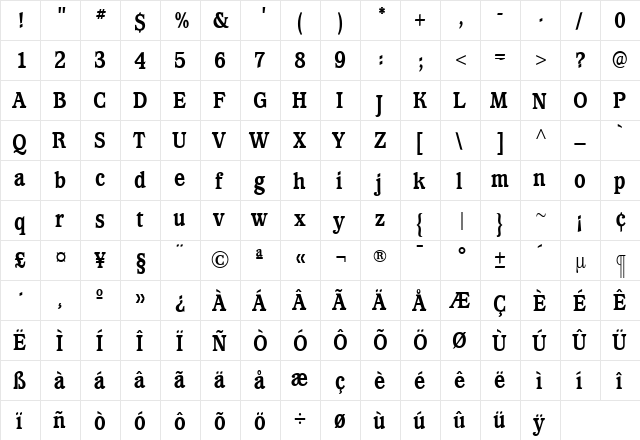
WaverlyExtraBoldCondensed Roman Font Preview
Design Context for WaverlyExtraBoldCondensed Typeface
WaverlyExtraBoldCondensed offers clean, dependable letterforms without strong stylistic allegiance, making it a practical choice for designers who need flexibility. Its bold stroke weight gives it real presence on the page. The condensed width makes it efficient for tight spaces without sacrificing legibility.
Pro Tip: Pair WaverlyExtraBoldCondensed with a font of contrasting weight or personality to build a more expressive typographic hierarchy.